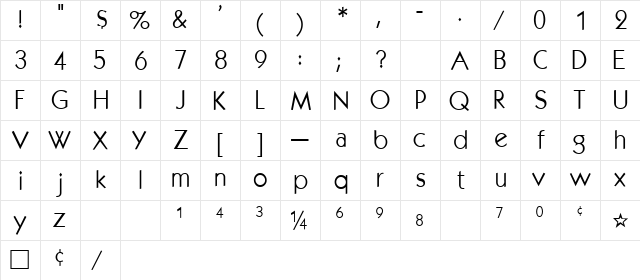
KabelPlain Regular
Design Context for KabelPlain Typeface
KabelPlain is a composed and adaptable typeface that performs quietly and consistently across a wide range of design contexts.